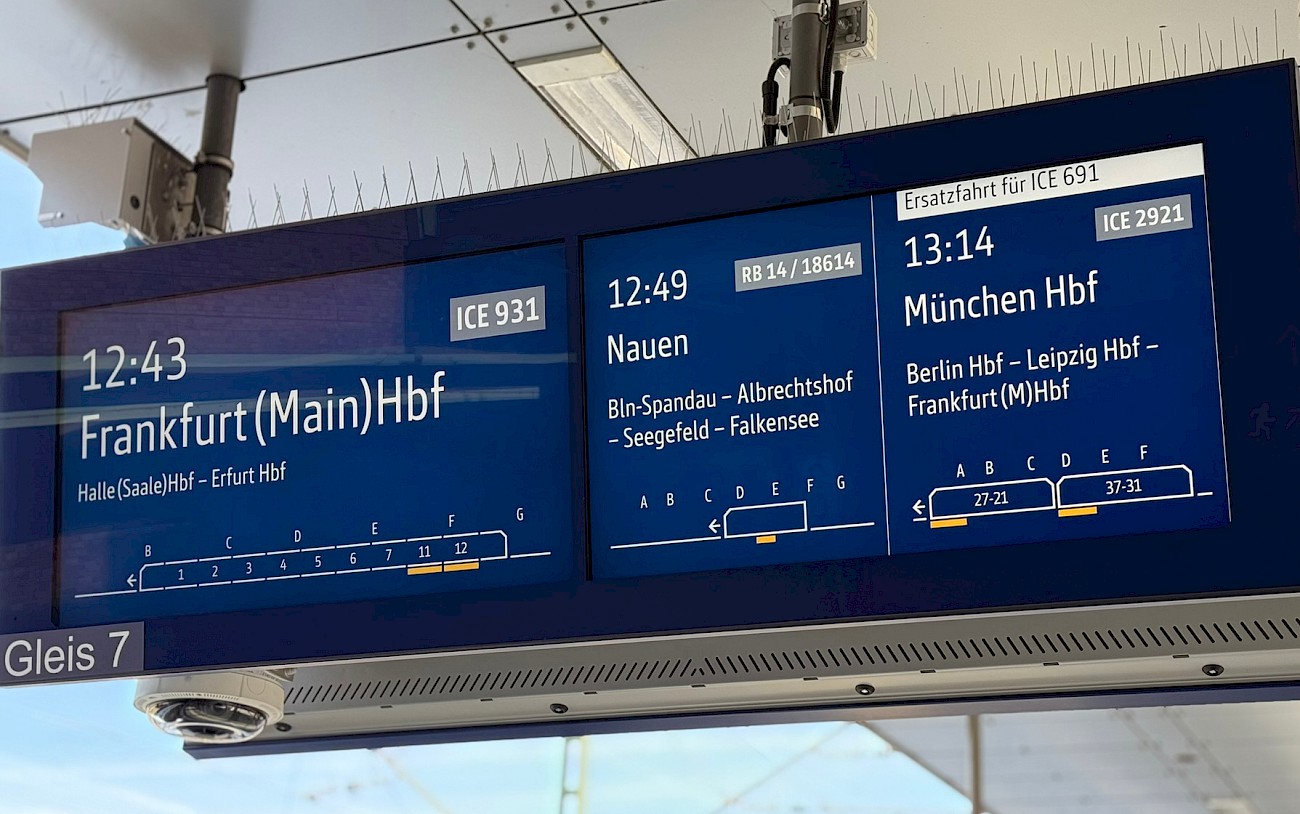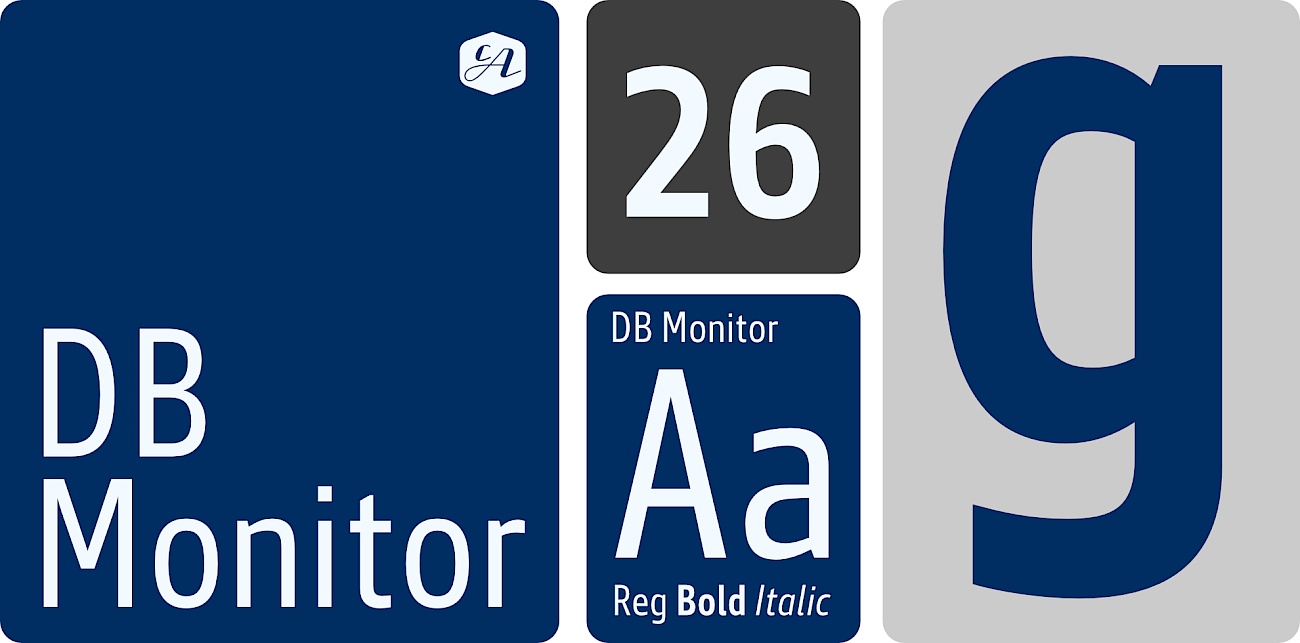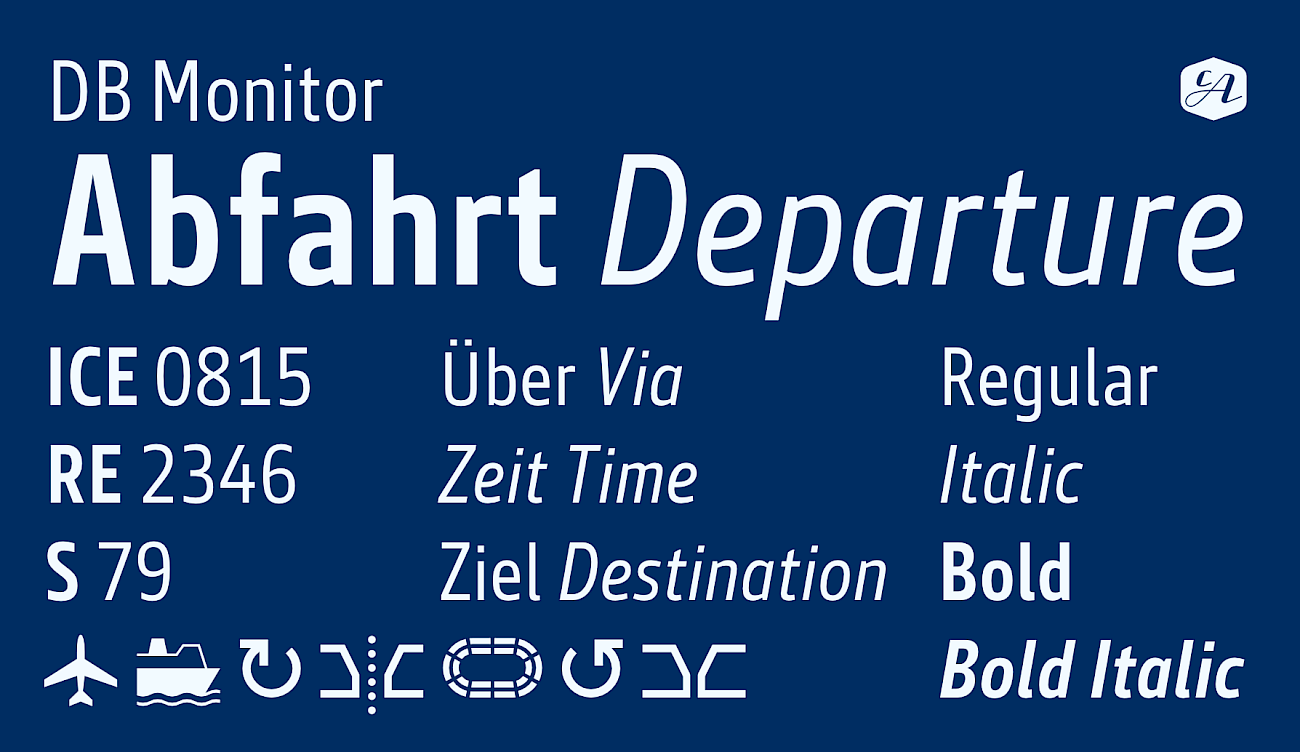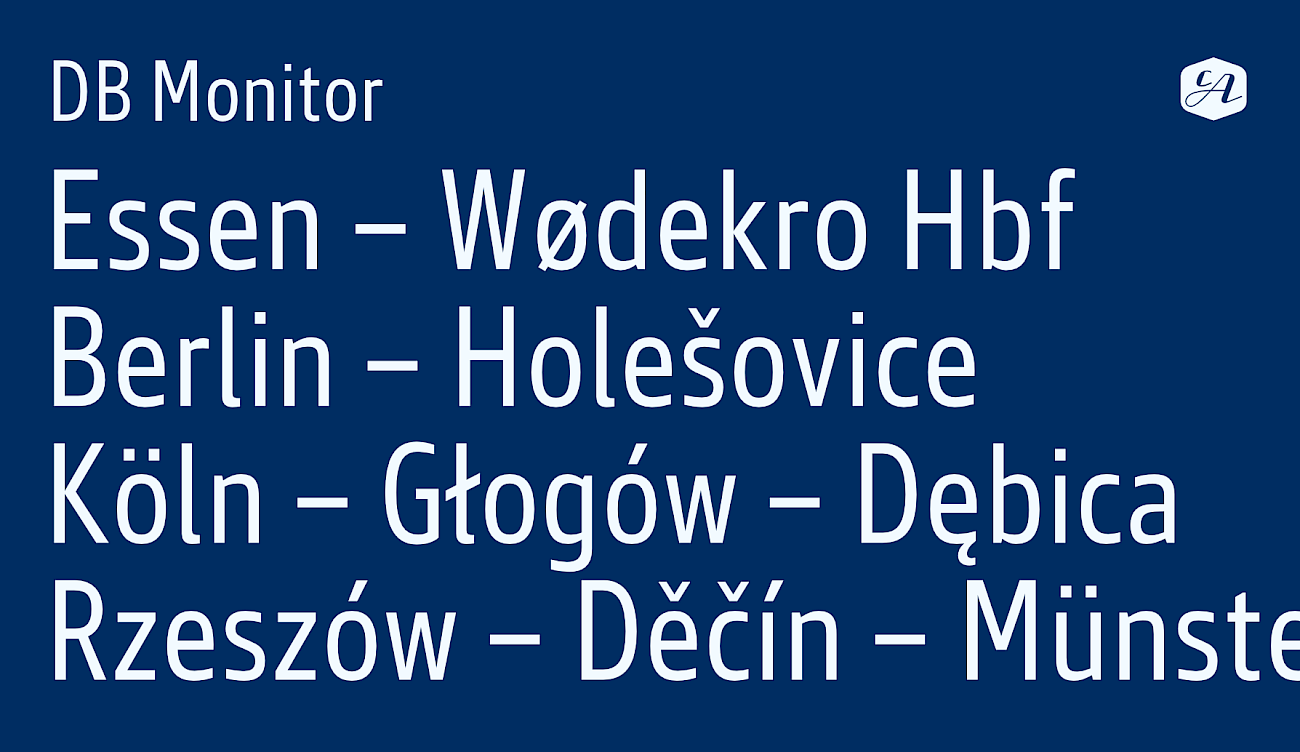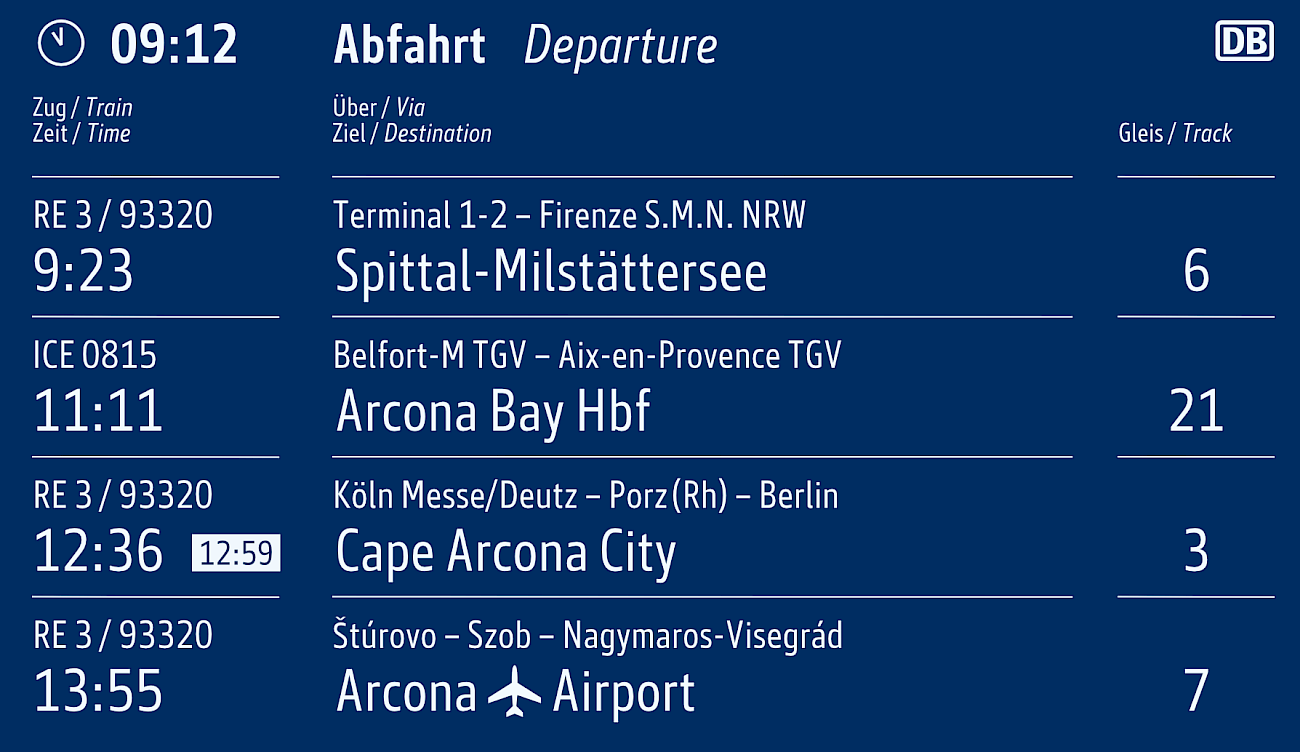
Monitor (Deutsche Bahn)
Custom Typeface Family
Monitor — A custom font for Deutsche Bahn
Cape Arcona Type Foundry has developed the Monitor font for Deutsche Bahn DB. It’s a non-discriminatory font that has been specially developed for display screens like TFT-based display panels in public transport. This font provides a consistent and legible appearance for travelers throughout the rail network.
The aim was to create a consistent and legible typeface for all travelers. We developed Regular, Bold, Italic and Bold Italic.
The challenges and our solutions:
Optimized readability: Monitor was specifically designed to be displayed on a dark blue background, ensuring clear, high-contrast legibility even in difficult lighting conditions.
Digits for time display: The digits are optimized, normalized and aligned to the baseline to ensure accurate and clear time display.
Space-saving design: By shortening the excess length of the umlauts and making the letters narrower, we were able to create a compact and space-saving typeface without compromising legibility.
Icon integration: We have integrated ready-made icons such as airport, stadium, ferry, and other relevant symbols into the family to provide a comprehensive solution for use on display boards.
High legibility: Despite the compact design, legibility remains high.
Monitor also contains the Cyrillic and Greek character set.